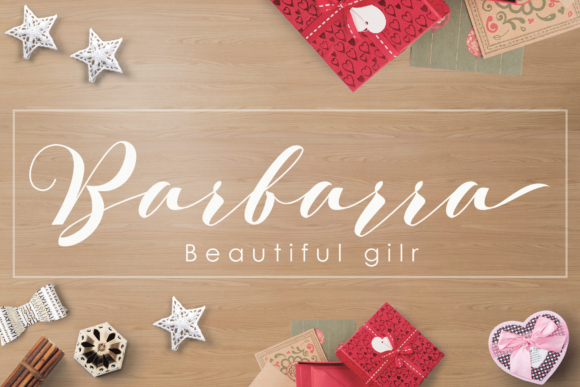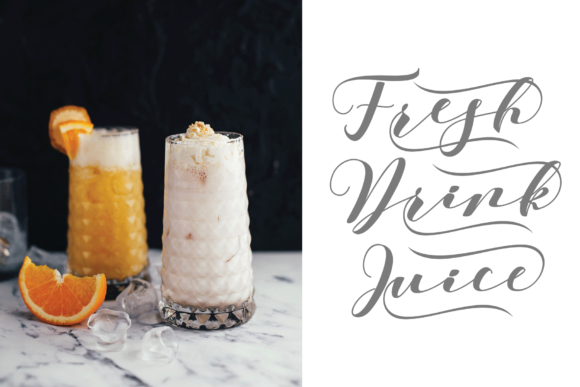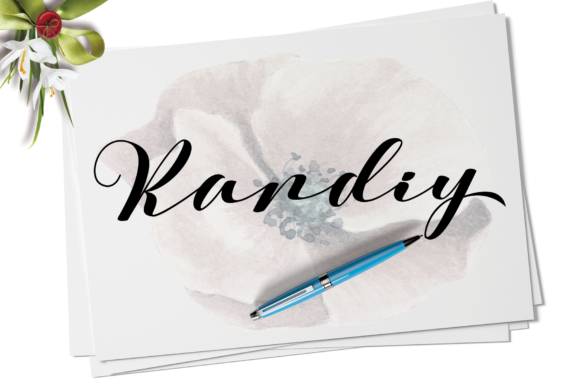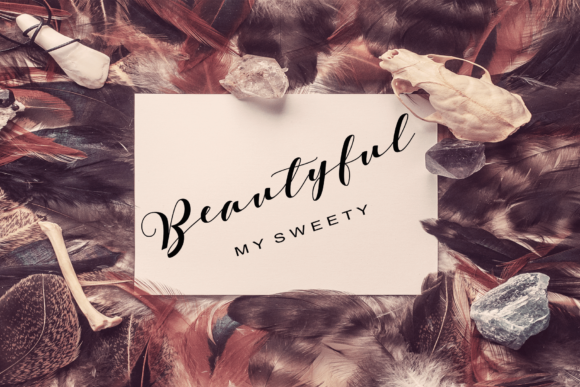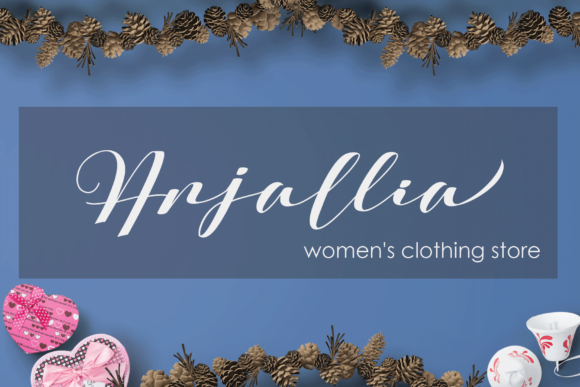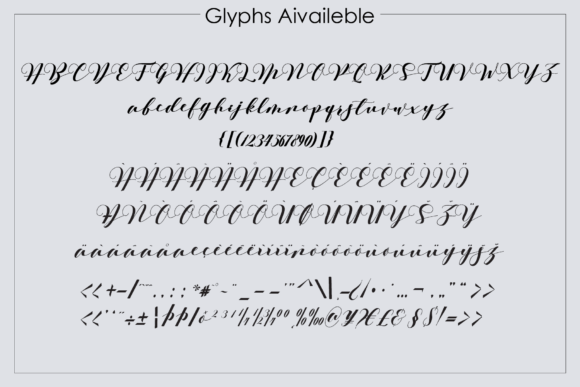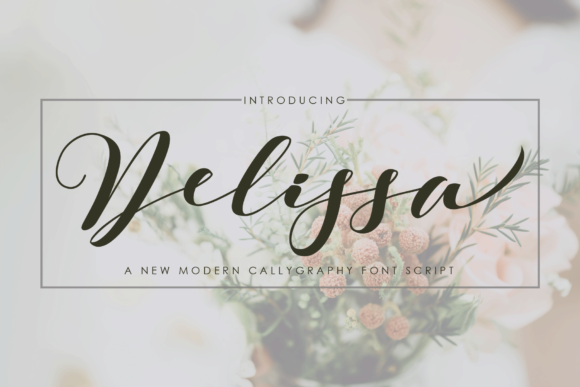
Introducing Delissa Font: Elevate Your Designs with a Personal Touch
In the world of typography, fonts play a crucial role in conveying messages, expressing emotions, and adding personality to designs. For designers and crafters looking to infuse their projects with a unique and personal touch, the Delissa font is an exceptional choice. This modern script font, with its handwritten and calligraphic flair, is perfect for those seeking to add a dash of elegance and sophistication to their work.
The Delissa Font: A Modern Script with a Personal Touch
The Delissa font is a beautiful, modern script font that exudes a sense of natural elegance. Its handwritten style, complete with unique forms of calligraphy, gives it a distinctive and personal feel. This font is not just a collection of letters; it’s an expression of creativity and individuality. The writing style is very natural, making it an excellent choice for designers who want to add a human touch to their designs.
Key Features of Delissa Font
- Handwritten Style: The Delissa font boasts a genuine handwritten look, complete with subtle imperfections and variations in letterforms.
- Unique Calligraphy: The font includes unique forms of calligraphy, adding an extra layer of elegance and sophistication to your designs.
- Natural Writing Style: The natural writing style of Delissa makes it perfect for creating designs that feel personal and approachable.
- Modern Aesthetic: Despite its classic feel, Delissa is a modern script font that will add a fresh and contemporary touch to your projects.
Why Choose Delissa Font?
For designers and crafters, the right font can make all the difference in a project. Here are a few reasons why Delissa font stands out:
- Versatility: Delissa can be used for a wide range of projects, from wedding invitations and branding materials to social media graphics and blog posts.
- Emotional Connection: The personal and handwritten nature of Delissa helps create an emotional connection with your audience, making your designs more relatable and engaging.
- Easy to Read: Despite its decorative nature, Delissa is easy to read, making it a practical choice for body text as well as headings.
Using Delissa Font in Your Designs
Delissa font can elevate a variety of design projects. Here are some ideas to get you started:
- Wedding and Event Stationery: Add a touch of romance and elegance to wedding invitations, save-the-date cards, and other event stationery.
- Branding and Packaging: Use Delissa to create unique and memorable brand identities, product labels, and packaging designs.
- Social Media Graphics: Stand out on social media with Delissa, using it for quotes, promotions, and other graphic posts.
- Blog and Website Design: Enhance your online presence with Delissa, using it for headings, titles, and other design elements.
The Delissa font is a versatile and beautiful modern script font that can add a personal touch to any design project. Its handwritten style, unique calligraphy, and natural writing aesthetic make it perfect for designers and crafters looking to create elegant, sophisticated, and engaging designs. Whether you’re working on wedding stationery, branding materials, or social media graphics, Delissa is an excellent choice. So, why settle for ordinary fonts when you can elevate your designs with the personal touch of Delissa?